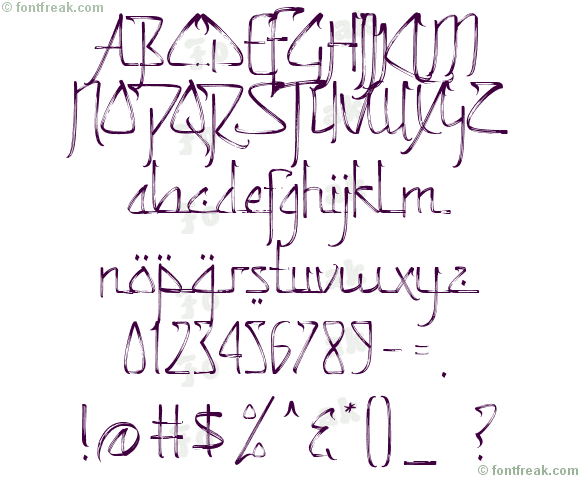
Ramadan-Regular
About Ramadan-Regular
The Ramadan-Regular font by 50Fox Studio is a captivating display font that beautifully blends elegance with a touch of cultural significance. This decorative typeface features intricate, flowing strokes that reflect a sense of tradition and artistry, making it an ideal choice for projects that call for a unique and expressive style. The stroke weight is delicately balanced, providing a graceful appearance while ensuring readability. With its moderate contrast and well-spaced characters, Ramadan-Regular is both visually appealing and functional.
This font is particularly well-suited for a variety of applications, including wedding invitations that aim to convey romance and sophistication, festive greeting cards that celebrate the spirit of Ramadan, and promotional materials for cultural events. Additionally, it can enhance restaurant menus that wish to showcase a unique culinary experience or be used in branding for businesses that focus on artisanal products. The font's aesthetic makes it an excellent choice for graphic designers, small business owners, and content creators looking to make a lasting impression.
The target audience for Ramadan-Regular includes those who appreciate a blend of tradition and modernity in typography. It appeals to designers aiming for a cultural resonance in their work while retaining a contemporary flair. The Ramadan-Regular font free download offers accessibility to anyone wishing to infuse their projects with an artistic touch.
What sets Ramadan-Regular apart is its ability to evoke emotions and tell stories through its unique design. Its harmonious blend of decorative elements and readability allows it to stand out in a crowded typographic landscape, making it a valuable addition to any creative toolkit. Whether used in print or digital formats, this font is sure to leave a memorable impact.